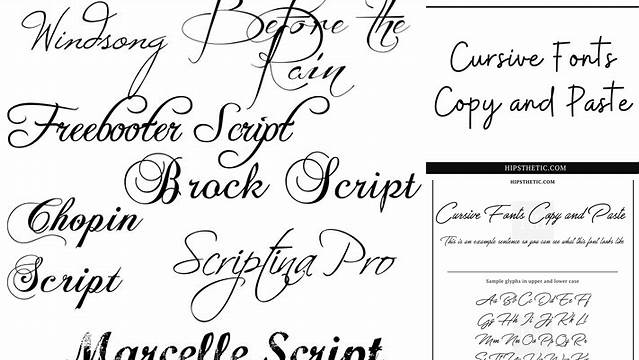
Free Cursive Font Generator: Copy & Paste Styles
Hey guys! Ever wanted to add a touch of elegance to your texts? Or maybe you're working on a project that needs that special cursive flair? Well, you're in the right place! We're diving deep into the world of free cursive font generators that let you copy and paste your heart out. No more struggling to find the perfect font or spending hours designing it yourself. Let’s jump in and explore how these awesome tools can make your text shine!
1. Understanding Cursive Fonts and Their Appeal
So, what's the big deal with cursive fonts anyway? Why are they so popular? Cursive fonts, often mimicking the flowing strokes of handwriting, bring a sense of sophistication and artistry to any text. They evoke feelings of tradition, elegance, and a personal touch, making them perfect for invitations, logos, and creative projects. Think about it: a wedding invitation in a beautiful cursive font instantly feels more special, right? These fonts aren't just about aesthetics; they're about conveying a message with style and personality. Whether it’s the delicate loops and swirls of a classic script or the bold strokes of a modern calligraphy-inspired typeface, cursive fonts add a layer of visual interest that standard fonts often lack. They’re used to capture a range of emotions and styles, from romantic and whimsical to professional and refined. Choosing the right cursive font can transform your message and make it truly stand out. Plus, with the rise of digital design, being able to quickly generate and copy-paste these fonts is a total game-changer.
2. The Basics of Free Cursive Font Generators
Okay, so what exactly is a free cursive font generator? Simply put, it's an online tool that allows you to type in text and convert it into various cursive font styles. The beauty of these generators is their simplicity and accessibility. You don't need to be a design guru or have fancy software to use them. Just type, select, and copy! Most of these generators offer a range of cursive styles, from traditional scripts to more modern and quirky designs. You can often customize the size, color, and even add special effects. The best part? It’s all free! No hidden fees or subscriptions, just instant cursive goodness. These generators work by using pre-designed font characters and converting your input text into the corresponding cursive letters. It’s a clever and efficient way to create stylish text without the hassle of downloading fonts or using complex design software. So, whether you're creating social media posts, designing invitations, or just want to add some flair to your online presence, these tools are a lifesaver.
3. Top 5 Free Cursive Font Generator Websites
Ready to dive into some specific tools? Let's check out the top 5 free cursive font generator websites that you absolutely need to know about. These sites are user-friendly, offer a wide range of styles, and, most importantly, are free to use! We'll be looking at factors like the variety of fonts available, ease of use, customization options, and any extra features that make them stand out. First up, we’ll explore sites like LingoJam and FontGet, which are known for their vast collections of fonts and straightforward interfaces. Then, we'll dive into tools that offer more customization, such as those that let you adjust font size and color. We’ll also cover generators that specialize in unique styles, like calligraphy-inspired scripts or playful, whimsical fonts. By the end of this section, you’ll have a solid understanding of the best resources available and be ready to start creating your own cursive masterpieces! Each of these websites brings something unique to the table, so you can find the perfect fit for your specific needs.
4. Step-by-Step Guide to Using a Cursive Font Generator
Alright, let’s break it down step-by-step. How do you actually use a cursive font generator? Don't worry, it’s super easy! First, you’ll want to head over to your chosen generator website. Most of these sites have a simple interface with a text box where you can type your message. Once you've typed your text, the generator will automatically display it in various cursive fonts. This is where the fun begins! You can scroll through the options and see which style catches your eye. When you find a font you love, there's usually a button or link to copy it. Just click that, and the text is copied to your clipboard. Now, you can paste it wherever you need it – social media, emails, documents, you name it! Some generators also offer additional customization options, like adjusting the font size, color, or adding effects. Play around with these features to create the perfect look for your project. It's all about experimenting and finding what works best for you. This step-by-step guide ensures that even if you're a total newbie, you can start generating beautiful cursive text in minutes.
5. Copying and Pasting Cursive Fonts on Different Platforms
Okay, you've generated your beautiful cursive text, now what? How do you actually get it where you need it? Copying and pasting cursive fonts might seem straightforward, but there are a few things to keep in mind depending on the platform you're using. On most social media platforms and messaging apps, you can simply paste the text directly into your post or message. However, some platforms might not support all cursive fonts, so your text could revert to a standard font. To avoid this, consider using an image-based approach, where you generate the text and save it as a picture, then upload the picture. For documents and design software, the process is similar – copy and paste. If you’re working on a website or blog, you might need to use HTML or CSS to ensure the cursive font displays correctly. This might sound a bit technical, but there are plenty of online resources and tutorials to help you. The key is to test your text on different platforms to make sure it looks exactly as you intended. With a little practice, you’ll be copying and pasting cursive fonts like a pro!
6. Best Cursive Fonts for Social Media
Social media is all about standing out, and using the right cursive font can definitely help you do that! But which fonts are the best for social media posts, stories, and bios? You want something that's eye-catching but also easy to read on small screens. Fonts with clean lines and a moderate level of embellishment tend to work well. Think about the overall vibe you're going for. A playful, bouncy font might be perfect for a casual post, while a more elegant script could be ideal for a promotional graphic. Instagram, for example, is a visual platform, so a striking cursive font can make your captions and stories pop. Twitter, on the other hand, has character limits, so you'll want a font that's legible even in small sizes. For platforms like Facebook and LinkedIn, a balance of professionalism and style is key. Choosing the right font can help you convey your message effectively and attract the attention you deserve. Experiment with different styles and see what resonates with your audience.
7. Using Cursive Fonts for Logos and Branding
Cursive fonts can add a touch of sophistication and personality to your logos and branding materials. Imagine a sleek, flowing script for a luxury brand or a whimsical, handwritten style for a creative business. But how do you choose the right cursive font for your brand? It's all about aligning the font with your brand's identity and message. A classic, elegant script can convey tradition and quality, while a modern, bold cursive can suggest innovation and creativity. Consider your target audience and the emotions you want to evoke. Your logo is the face of your brand, so the font you choose plays a crucial role in shaping perceptions. Think about iconic brands that use cursive fonts, like Disney or Coca-Cola. These fonts have become synonymous with their brands, creating a strong visual identity. When using cursive fonts for branding, make sure they’re legible and scalable. They should look good on everything from business cards to websites.
8. Cursive Fonts for Invitations and Cards
When it comes to invitations and cards, cursive fonts are a timeless choice. They add an element of elegance and formality that's perfect for special occasions like weddings, birthdays, and graduations. The right cursive font can transform a simple invitation into a cherished keepsake. Consider the tone of your event. A formal wedding invitation might call for a classic script, while a casual birthday party invite could use a more playful font. The key is to choose a font that reflects the event's atmosphere. Think about the overall design of your invitation or card. The font should complement the other elements, such as the paper, colors, and graphics. Make sure the font is easy to read, even in cursive. Avoid overly ornate fonts that can become illegible. Test different font sizes and layouts to find the perfect balance. Using a cursive font for invitations and cards is a simple way to add a personal and stylish touch.
9. Incorporating Cursive Fonts in Website Design
Want to add a touch of elegance to your website? Cursive fonts can be a fantastic way to do it! But it's crucial to use them strategically. Overdoing it can make your site look cluttered and unprofessional. Use cursive fonts sparingly, perhaps for headings, logos, or call-to-action buttons. Think of them as accents that add personality and visual interest. Ensure your cursive fonts are legible on all devices. Website visitors should be able to easily read your text, whether they're on a desktop or a mobile phone. Test your website with different browsers and screen sizes to ensure the fonts display correctly. Pair cursive fonts with simpler, more readable fonts for body text. This creates a visual hierarchy and makes your content easier to digest. Consider the overall design of your website. The cursive font should complement the colors, layout, and other design elements. Incorporating cursive fonts into your website design can create a unique and memorable user experience.
10. Cursive Fonts in Graphic Design Projects
Graphic design projects often call for a touch of elegance and personality, and cursive fonts can deliver just that! Whether you're designing posters, flyers, or social media graphics, the right cursive font can make your work stand out. But how do you choose the perfect font for your project? Start by considering the overall style and message you want to convey. A classic script might be ideal for a formal event, while a modern calligraphy-inspired font could be perfect for a trendy brand. The font should align with the project's aesthetic. Think about the other design elements in your project. The cursive font should complement the colors, images, and layout. Make sure the font is legible, especially in smaller sizes. Avoid fonts that are too ornate or difficult to read. Experiment with different font weights and styles to find the perfect balance. Using cursive fonts effectively in graphic design can elevate your projects and create a lasting impression.
11. Generating Cursive Text for Tattoos
Thinking about getting a tattoo in cursive? It's a popular choice for adding a personal and meaningful touch to your ink. Cursive fonts can create a beautiful and flowing design that reflects your individuality. But there are a few key things to consider before you commit. The most important factor is legibility. Tattoo designs need to be clear and readable, even over time. Avoid overly intricate or delicate fonts that might blur or fade. Choose a font that suits your personal style and the message you want to convey. A simple, elegant script might be perfect for a name or date, while a bolder cursive could be ideal for a quote or phrase. Consider the placement of your tattoo. The font should fit the shape and size of the area you're tattooing. Work with an experienced tattoo artist who can advise you on the best font and placement for your design. Generating cursive text for tattoos is a creative way to express yourself, but careful planning is essential.
12. Free Cursive Font Generator Apps for Mobile
On the go and need a quick cursive fix? No problem! There are plenty of free cursive font generator apps available for your mobile devices. These apps let you create stylish text right from your smartphone or tablet, making it easier than ever to add flair to your messages and social media posts. Mobile apps offer convenience and accessibility, allowing you to generate cursive text wherever you are. Look for apps that offer a variety of font styles and customization options. The best apps will let you adjust font size, color, and even add special effects. Check user reviews and ratings before downloading an app. This will give you an idea of its performance and reliability. Many apps also allow you to directly share your cursive text to social media platforms, making the process even smoother. Using free cursive font generator apps can boost your mobile communication and content creation.
13. Cursive Fonts for Bullet Journals and Planners
Bullet journals and planners are all about organization and personalization, and cursive fonts can add a touch of creativity and style to your layouts. Whether you're highlighting important dates, creating headings, or adding decorative elements, cursive fonts can make your journal or planner more visually appealing. Using cursive fonts can transform a functional tool into a work of art. Experiment with different font styles to find what suits your aesthetic. A simple, elegant script can add a touch of sophistication, while a whimsical, handwritten style can create a more playful look. Consider using cursive fonts for titles and headings to make them stand out. This can help you quickly locate specific sections in your journal or planner. Practice your cursive handwriting to improve your skills and develop your own unique style. Cursive fonts in bullet journals and planners can make organization fun and beautiful.
14. Making Cursive Text Bold and Italic
Sometimes, you need your cursive text to stand out even more! Making cursive text bold or italic can add emphasis and visual interest to your designs. Bold and italic styles can enhance the impact of your cursive fonts. Many online generators offer options to bold or italicize your text directly. Look for these features when choosing a generator. If your generator doesn't have these options, you can often use HTML or CSS to format your text. For example, wrapping your text in <strong> tags will make it bold, while using <em> tags will italicize it. Experiment with different combinations of bold and italic to create the desired effect. Use these styles sparingly to avoid overwhelming your design. Making cursive text bold and italic can add a professional touch to your projects.
15. Combining Cursive Fonts with Other Font Styles
One of the keys to great typography is knowing how to combine different font styles effectively. Cursive fonts, with their elegant and flowing nature, can pair beautifully with other font styles. Combining fonts adds visual interest and hierarchy to your designs. A common approach is to pair a cursive font with a simpler sans-serif font. This creates a balance between style and readability. For example, you might use a cursive font for headings and a sans-serif font for body text. Another option is to combine a cursive font with a serif font. This can create a more traditional and sophisticated look. Consider the overall style and tone of your project when choosing font pairings. Experiment with different combinations to find what works best. Combining cursive fonts with other styles can elevate your designs and make them more visually appealing.
16. How to Choose the Right Cursive Font Style
With so many cursive fonts out there, how do you choose the right one for your project? It can feel overwhelming, but a few key considerations can help you narrow down your options. Start by thinking about the overall tone and message you want to convey. Is your project formal or informal? Elegant or playful? The font should align with the style of your project. Consider your target audience. What font styles will resonate with them? A font that appeals to a young audience might not be the best choice for a more mature demographic. Think about the legibility of the font. An overly ornate font might look beautiful, but if it's difficult to read, it won't be effective. Test different fonts in various sizes and contexts to see how they look. Choosing the right cursive font style can make or break your design.
17. The History and Evolution of Cursive Writing
Cursive writing has a rich history, evolving over centuries to become the elegant script we know today. Understanding its origins can give you a deeper appreciation for cursive fonts and their significance. Cursive writing developed as a faster and more efficient way to write by hand. It emerged from earlier forms of handwriting, like Roman cursive, which was used for everyday communication. Over time, different styles of cursive writing developed in various regions and cultures. The Renaissance saw the rise of elegant scripts like Italic, which influenced many modern cursive fonts. In the 18th and 19th centuries, penmanship schools played a crucial role in standardizing cursive writing. Today, cursive writing continues to evolve, with modern calligraphy and digital fonts pushing the boundaries of traditional styles. Exploring the history of cursive writing can provide valuable context for using cursive fonts in your designs.
18. Differences Between Cursive, Script, and Calligraphy Fonts
You've probably heard the terms cursive, script, and calligraphy used interchangeably, but there are subtle differences between them. Understanding these distinctions can help you choose the right font for your project. Cursive fonts are designed to mimic the flowing strokes of handwriting, with letters typically connected. Script fonts is a broader category that includes any font resembling handwriting, including cursive, but also fonts that may not have connected letters. Calligraphy, on the other hand, is an artistic style of writing that emphasizes the beauty and expressiveness of each stroke. Calligraphy fonts often feature more elaborate and decorative letterforms. While cursive fonts are generally easier to read and more practical for everyday use, calligraphy fonts are best suited for special occasions and artistic projects. Knowing the nuances of each style can help you make informed font choices.
19. Cursive Fonts and Readability: Best Practices
While cursive fonts can add a touch of elegance to your designs, readability is crucial. An overly ornate or difficult-to-read font can detract from your message. Prioritizing readability ensures your text is effective and engaging. Choose fonts that have clear and distinct letterforms. Avoid fonts with too many embellishments or intricate details. Consider the size and spacing of your text. Smaller sizes and tight spacing can make cursive fonts harder to read. Pair cursive fonts with simpler fonts for body text. This creates a visual hierarchy and improves overall readability. Test your text on different devices and screen sizes to ensure it looks good everywhere. Following these best practices will help you use cursive fonts effectively without sacrificing readability.
20. Common Mistakes to Avoid When Using Cursive Fonts
Using cursive fonts effectively requires a bit of finesse. There are a few common mistakes that can undermine your designs. Knowing what to avoid can help you create polished and professional-looking projects. Avoiding common mistakes ensures your cursive fonts enhance your designs. Overusing cursive fonts is a big no-no. Too much cursive can make your design look cluttered and overwhelming. Choose one or two cursive fonts and use them sparingly. Ignoring readability is another common mistake. Opt for cursive fonts that are easy to read, even in smaller sizes. Pairing cursive fonts with clashing fonts can also create a jarring effect. Choose fonts that complement each other. Failing to consider the context of your project is another pitfall. Make sure your font choice aligns with the style and message of your design. Being aware of these common mistakes can help you use cursive fonts effectively and avoid design mishaps.
21. Advanced Techniques for Customizing Cursive Fonts
Want to take your cursive font game to the next level? There are several advanced techniques you can use to customize your fonts and create unique designs. Customizing cursive fonts allows you to create truly unique designs. One technique is to adjust the spacing between letters and words. This can dramatically change the look and feel of your font. Experiment with kerning (adjusting the space between individual letters) and tracking (adjusting the space between all letters in a word). Another technique is to modify the letterforms themselves. You can use design software to tweak the curves and strokes of the letters. Adding flourishes and swashes can also enhance the elegance of your font. Consider using different colors and gradients to make your cursive text stand out. Mastering these advanced techniques can help you create custom cursive fonts that perfectly suit your projects.
22. Creating Cursive Logos with Free Generators
Logos are the face of your brand, and a well-designed logo can make a lasting impression. Cursive fonts can add a touch of elegance and personality to your logos. Creating cursive logos is a great way to showcase your brand's unique identity. Free cursive font generators can be a valuable tool for logo design, but it's important to use them strategically. Start by choosing a font that aligns with your brand's style and message. A classic script might be perfect for a traditional brand, while a modern cursive could suit a more contemporary business. Consider the legibility of the font. Your logo should be easy to read, even in small sizes. Experiment with different layouts and compositions to create a visually appealing logo. Use design software to refine your logo and add custom touches. Creating cursive logos with free generators can be a cost-effective way to develop a strong brand identity.
23. Cursive Fonts in Video Editing and Titles
Adding stylish titles and text overlays can significantly enhance your videos. Cursive fonts are a fantastic way to add a touch of elegance and professionalism to your video projects. Using cursive fonts in video editing adds a visual flair that engages viewers. When choosing a cursive font for your videos, consider the overall tone and style of your content. A classic script might be ideal for a formal video, while a playful cursive could suit a more casual vlog. Ensure your cursive fonts are legible on screen. Choose fonts with clear letterforms and sufficient spacing. Use animation and transitions to make your titles more dynamic. Consider the color and contrast of your text. Your text should stand out against the background. Experiment with different font sizes and placements to find the perfect look. Cursive fonts in video editing can elevate your content and create a polished final product.
24. The Psychology of Cursive Fonts: Emotional Impact
Fonts have the power to evoke emotions and influence perceptions. Cursive fonts, with their flowing and elegant forms, can create a range of emotional responses. Understanding the psychology of cursive fonts can help you use them more effectively. Cursive fonts often convey feelings of sophistication, tradition, and personalization. They can evoke a sense of nostalgia and warmth. Elegant scripts can create a feeling of luxury and refinement. Playful cursive fonts can communicate creativity and fun. Consider the emotional impact of your font choice when designing your projects. Align your font with the emotions you want to evoke in your audience. The psychology of cursive fonts is a powerful tool for visual communication.
25. Cursive Fonts and Cultural Significance
Cursive writing has cultural significance in many parts of the world. Different cultures have developed their own unique styles of cursive writing, each with its own history and traditions. Appreciating the cultural significance of cursive fonts adds depth to your designs. In some cultures, cursive writing is seen as a symbol of education and refinement. In others, it is associated with tradition and heritage. Calligraphy, a form of artistic cursive writing, is highly valued in many cultures, particularly in East Asia. When using cursive fonts, it's important to be mindful of their cultural context. Choose fonts that are appropriate for your audience and your message. Understanding the cultural significance of cursive fonts can enrich your designs and make them more meaningful.
26. Legal Aspects of Using Free Cursive Fonts
When using free cursive fonts, it's crucial to understand the legal aspects and licensing terms. Not all free fonts are created equal, and some may have restrictions on their use. Understanding font licensing ensures you use free fonts legally. Check the license agreement for each font before using it. Some fonts are free for personal use but require a commercial license for business projects. Others may have restrictions on embedding fonts in documents or websites. Be aware of copyright laws and intellectual property rights. Using a font without proper permission can lead to legal issues. Look for fonts with clear and permissive licenses, such as the SIL Open Font License. This license allows you to use, modify, and distribute the font freely. Familiarizing yourself with the legal aspects of using free cursive fonts will help you avoid potential problems.
27. Troubleshooting Common Issues with Cursive Font Generators
Even with the best tools, you might encounter some issues when using cursive font generators. Knowing how to troubleshoot these problems can save you time and frustration. Troubleshooting common issues ensures a smooth font generation process. If the generator isn't displaying the fonts correctly, try clearing your browser's cache and cookies. Sometimes, old data can interfere with the generator's functionality. If the text is not copying and pasting properly, try using a different browser or device. Compatibility issues can sometimes arise. If you're having trouble finding a specific font style, try searching for it by name or using keywords in the generator's search bar. If the generator is slow or unresponsive, check your internet connection. A poor connection can affect the generator's performance. Knowing how to troubleshoot common issues will help you make the most of cursive font generators.
28. The Future of Cursive Fonts in Digital Design
Cursive fonts have a timeless appeal, but how will they fare in the ever-evolving world of digital design? The future looks bright for cursive fonts, with new technologies and trends opening up exciting possibilities. The future of cursive fonts is dynamic and innovative. Artificial intelligence (AI) is playing a growing role in font design, with AI-powered tools helping to create unique and customized cursive fonts. Variable fonts, which allow for dynamic adjustments to font weight, width, and style, are gaining popularity. This technology offers greater flexibility and control over typography. The rise of virtual and augmented reality (VR/AR) is creating new opportunities for immersive and interactive typography. Cursive fonts can add a personal and human touch to these digital experiences. The future of cursive fonts is likely to be a blend of traditional elegance and cutting-edge technology.
29. Resources for Learning More About Typography